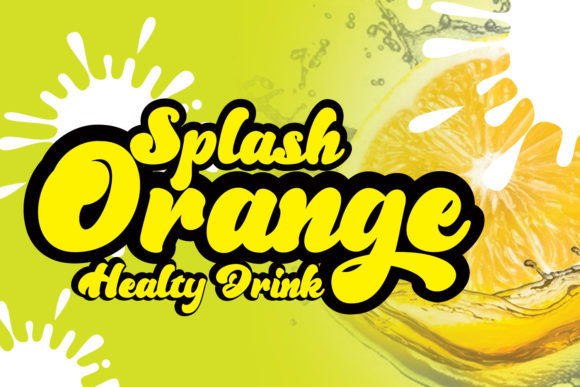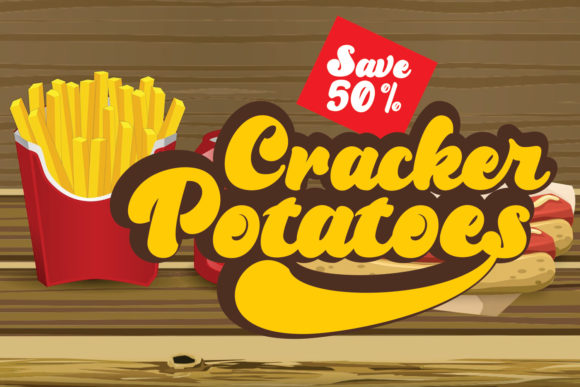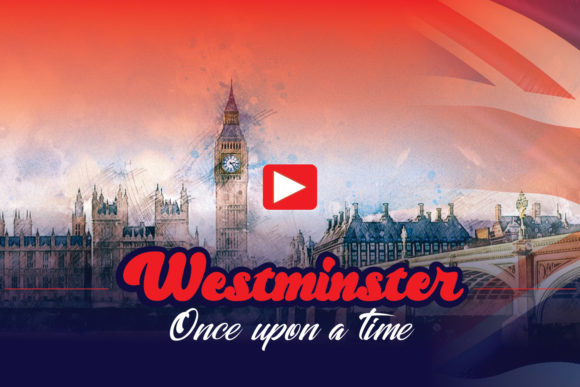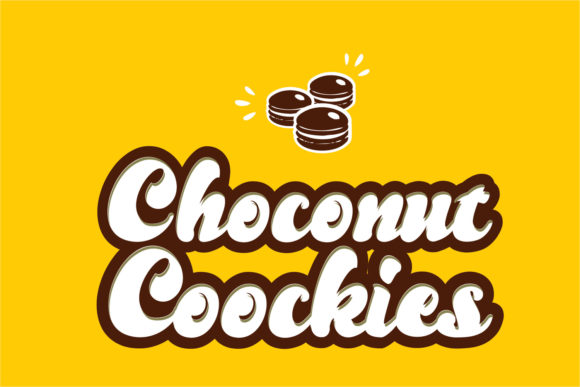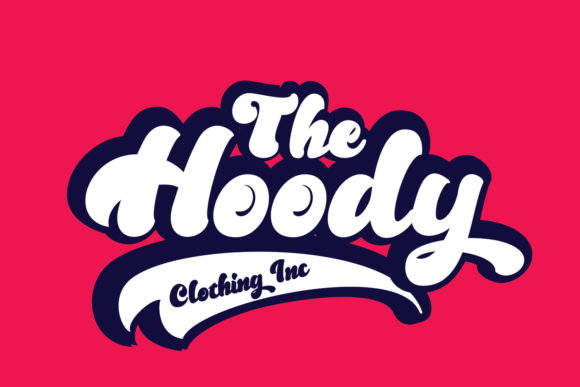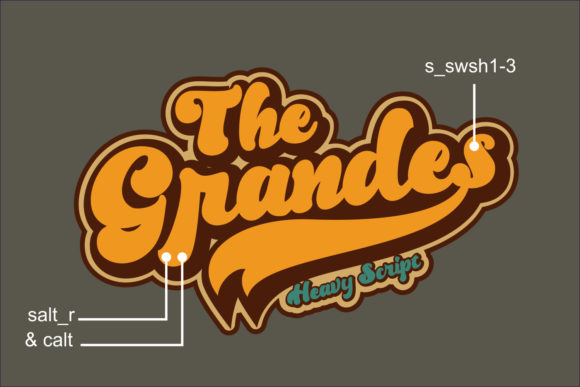
Introducing Grandes Font: The Ultimate Vintage Script Font for Designers and Crafters
Are you looking for a font that can add a touch of nostalgia and sophistication to your design projects? Look no further than Grandes Font, a thick script font with a vintage style that’s perfect for creating unique and eye-catching designs. In this article, we’ll take a closer look at Grandes Font, its features, and how you can use it to elevate your design ideas.
What is Grandes Font?
Grandes Font is a script font that boasts a thick, bold, and elegant style, reminiscent of vintage typography. Its unique blend of classic and modern elements makes it an excellent choice for designers and crafters looking to add a retro touch to their work. With its sturdy and confident lines, Grandes Font exudes a sense of luxury and sophistication, making it perfect for a wide range of design applications.
Key Features of Grandes Font
So, what makes Grandes Font so special? Here are some of its key features:
- Thick and bold lines: Grandes Font features thick, bold lines that give it a sturdy and confident look.
- Vintage style: Its vintage-inspired design makes it perfect for creating retro-style designs, from logos and posters to invitations and packaging.
- Elegant and sophisticated: Despite its bold lines, Grandes Font has an elegant and sophisticated feel that’s perfect for high-end designs.
- Highly versatile: Grandes Font can be used for a wide range of design applications, from digital designs to print materials.
How to Use Grandes Font in Your Designs
Grandes Font is an incredibly versatile font that can be used in a variety of design applications. Here are some ideas to get you started:
- Logos and branding: Use Grandes Font to create a bold and eye-catching logo that makes a statement.
- Posters and flyers: Add a touch of nostalgia to your posters and flyers with Grandes Font.
- Invitations and greeting cards: Create beautiful and elegant invitations and greeting cards with Grandes Font.
- Packaging design: Use Grandes Font to add a vintage touch to your packaging designs.
- Digital designs: Grandes Font can also be used for digital designs, such as social media graphics, website headers, and more.
Tips for Getting the Most Out of Grandes Font
Here are some tips for getting the most out of Grandes Font:
- Experiment with different colors: Grandes Font looks great in a variety of colors, so don’t be afraid to experiment and find the perfect color scheme for your design.
- Pair it with other fonts: Grandes Font can be paired with other fonts to create a unique and interesting design.
- Use it in combination with images: Grandes Font looks great when used in combination with images, so consider adding a photo or illustration to your design.
Grandes Font is a powerful and versatile font that’s perfect for designers and crafters looking to add a touch of nostalgia and sophistication to their designs. With its thick, bold lines and vintage-inspired design, Grandes Font is sure to make a statement in any design project. Whether you’re creating a logo, poster, invitation, or packaging design, Grandes Font is an excellent choice. So why wait? Download Grandes Font today and start creating unique and eye-catching designs that will leave a lasting impression!